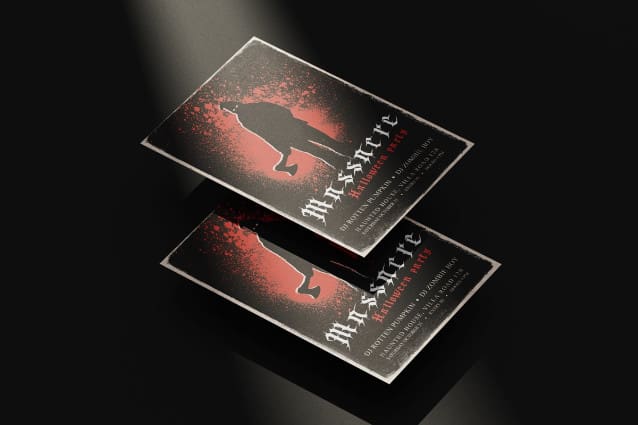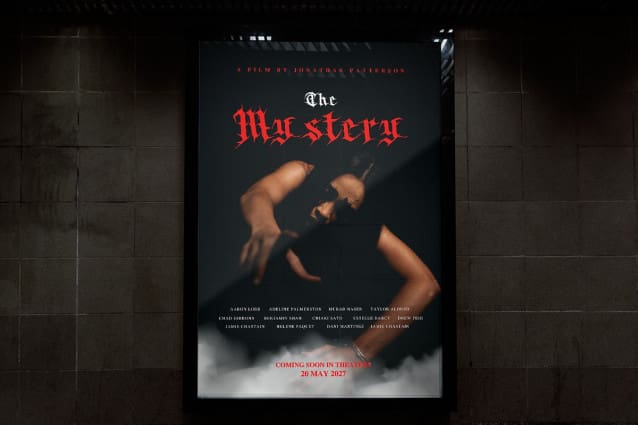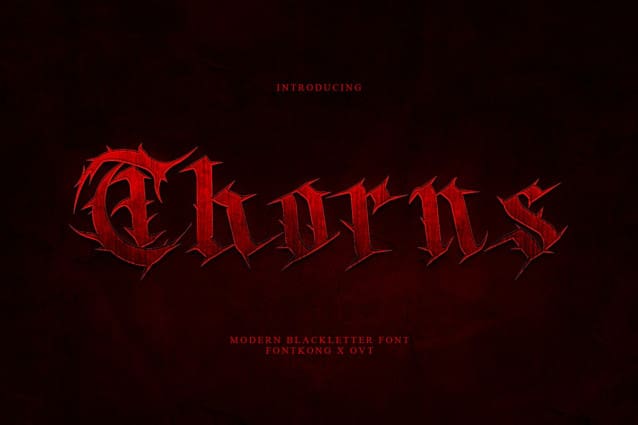
Thorns Blackletter Font
Thorns Blackletter Font a modern blackletter font that combines the classic, intricate details of traditional blackletter typography with a contemporary twist. This font is designed to make a bold statement, perfect for projects that require a touch of sophistication and edge.
Thorns Blackletter Font is ideal for a variety of creative applications, including posters, album covers, branding, logos, and editorial design. Its unique blend of old-world charm and modern aesthetics makes it a versatile choice for designers looking to create impactful and memorable visuals.
Featuring a complete set of uppercase and lowercase letters, numerals, punctuation, and special characters, Thorns Blackletter Font offers extensive flexibility and compatibility for all your design needs. The font’s sharp lines and intricate details evoke a sense of strength and elegance, making it a perfect addition to your typographic arsenal.
Thorns Blackletter Font is the ultimate font for adding a modern blackletter touch to your designs.